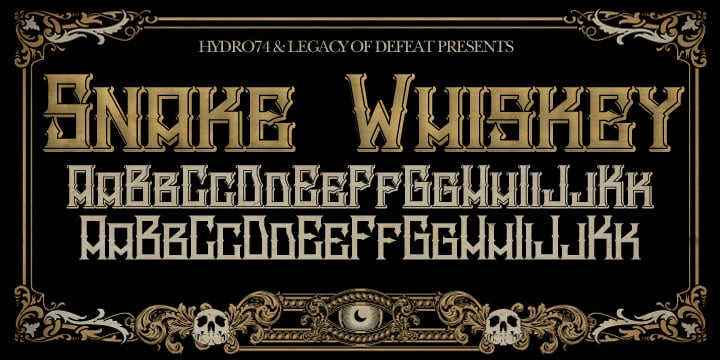
H74 Snake Whiskey Font is perfect for edgy branding, bar and distillery signage, music posters, tattoo-inspired apparel, and gritty social media graphics. Its angular, snake-like curves paired with rugged serifs create a bold and memorable aesthetic.
What makes H74 Snake Whiskey Font Free Download so exciting is its unique fusion of western whiskey label flair and underground tattoo culture. The stylized letterforms convey strength and character—ideal for designs that want to leave a lasting impression.
The H74 Snake Whiskey font family typically includes Regular, Bold, and Rough versions, giving you flexibility for both standard logos and distressed text effects. The inline or ornamental variants add extra texture and visual intrigue.